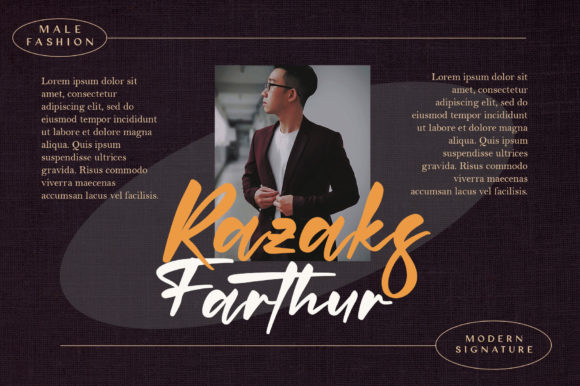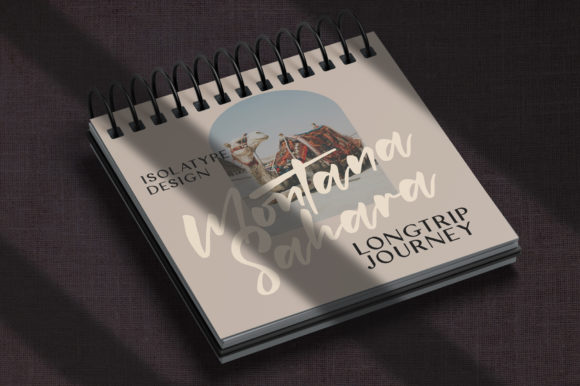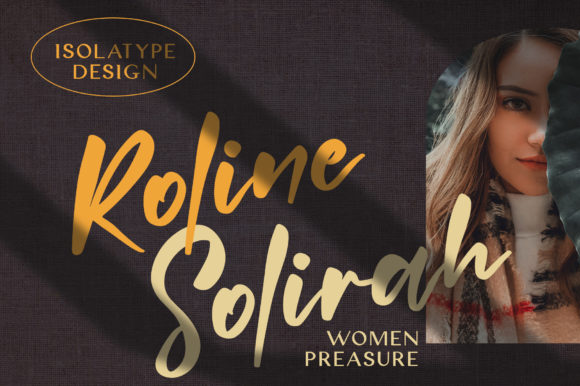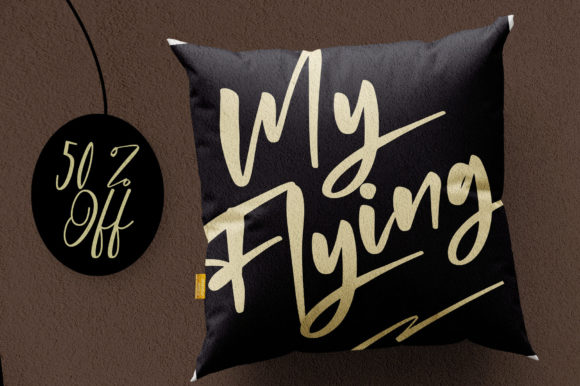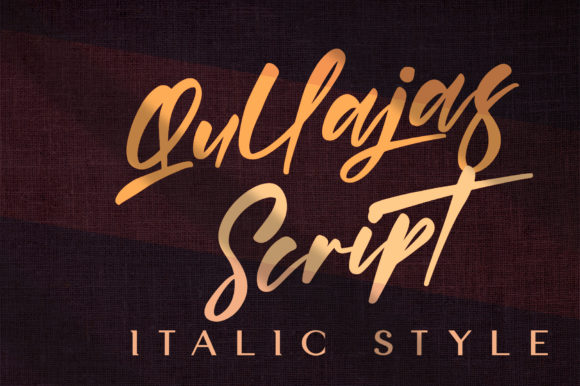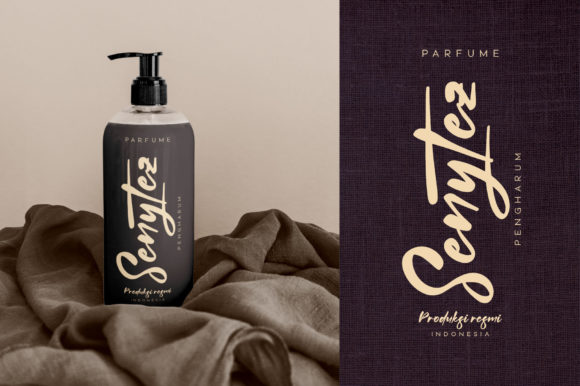
Introduction to Quillajas Script Font
Remember that moment when you’re brainstorming ideas for a creative project, and everything just clicks into place? You have a clear vision of how you want it to look, feel, and flow. But sometimes, all it takes is the right design resource to bring your vision to life. That’s where the Quillajas Script Font comes in – a beautifully crafted, elegant, and flowing handwritten font that can elevate even the most mundane ideas.
With its stunning, well-balanced characters, Quillajas Script Font is the perfect addition to any design project. Whether you’re working on a high-end marketing campaign or a personal blog, this font is sure to make your content stand out. And the best part? It’s available for free download, making it an accessible design resource for creatives of all levels.
Key Features of Quillajas Script Font
- Unique and elegant script font style, perfect for creative projects and designs that require a touch of sophistication.
- Perfect for designers looking for a high-quality, free script font to elevate their creative projects and designs.
Honest Review: Quillajas Script Font
As a designer, I’m always on the lookout for high-quality design resources that can elevate my creative projects. Recently, I had the chance to try out the Quillajas Script Font, and I must say, it’s been a game-changer for me.
Here’s what works well:
- ✨ Elegant and sophisticated design that’s perfect for high-end projects
- ✨ Wide range of languages supported, making it a great option for multilingual designs
- ✨ High-quality, scalable vectors that look great even at small sizes
- ✨ Easy to customize with its transparent background, making it a great option for creative projects
- ⚠️ Limited font sizes available, which can be a bit restrictive for some projects
- ⚠️ Not suitable for projects that require a bold or playful font
Overall, I’m really impressed with the Quillajas Script Font. It’s a high-quality design resource that’s perfect for creative projects that require a sophisticated and elegant touch. The free download is a bonus, making it a great option for designers on a budget.
Common Use Cases for Quillajas Script Font
Quillajas Script Font is perfect for a variety of creative projects, including: